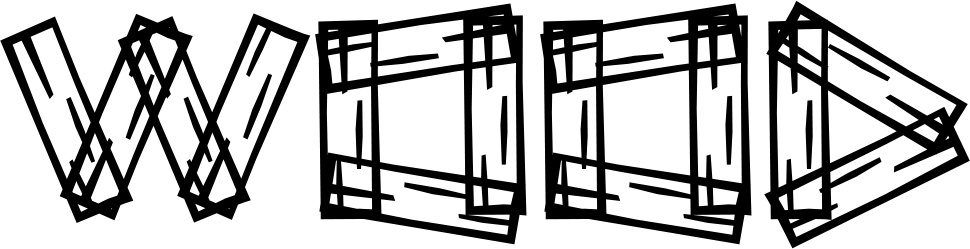
Wood Font
Today’s font can be a good choice for carpentry signs! Wood, as the name shows, is designed with hollow wooden pieces that give off a friendly, approachable, and exciting vibe.
You can use it to write movie titles and posters, cartoon names, vacation and traveling flyers, and channel banners. This wooden font is an all-caps one and can be a bit hard to read.
A font that I came up with.